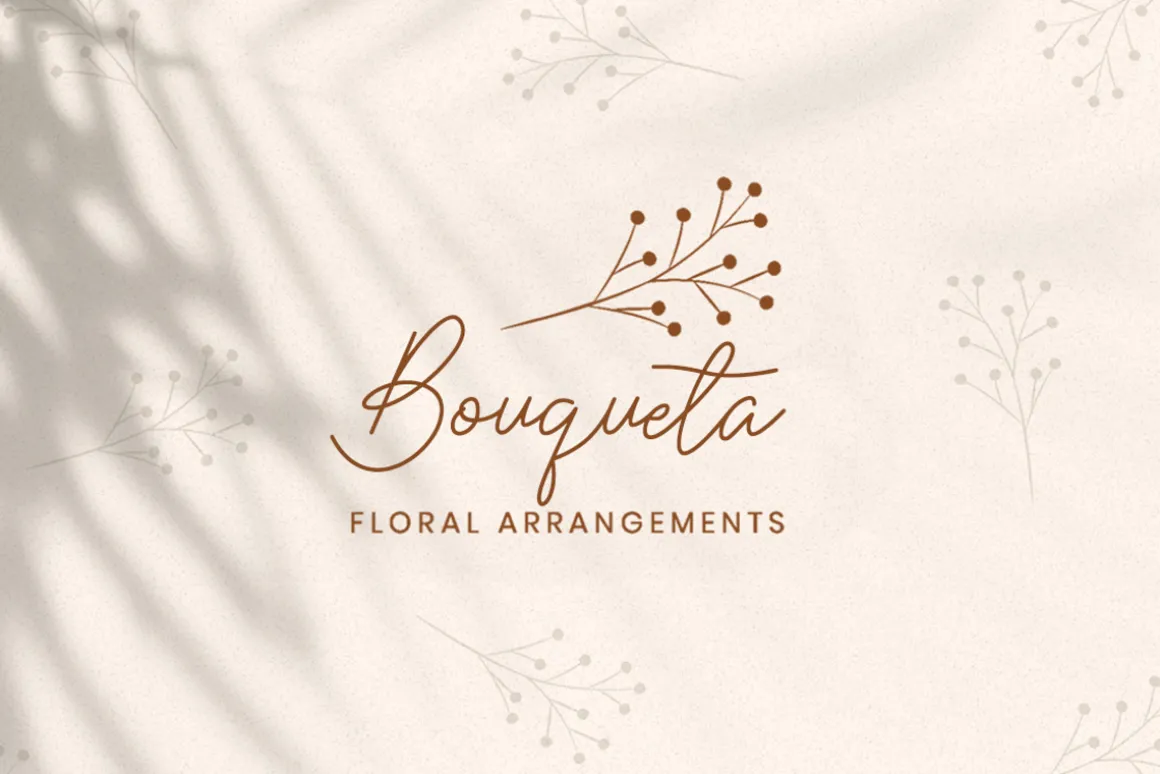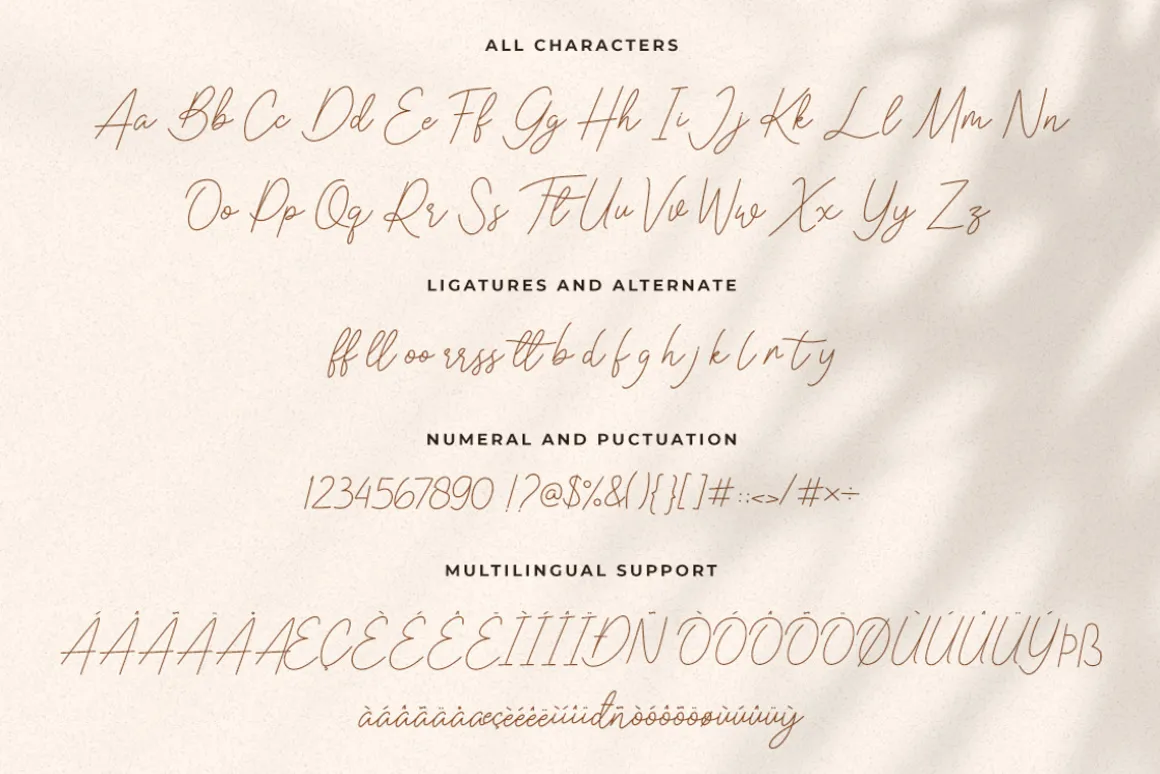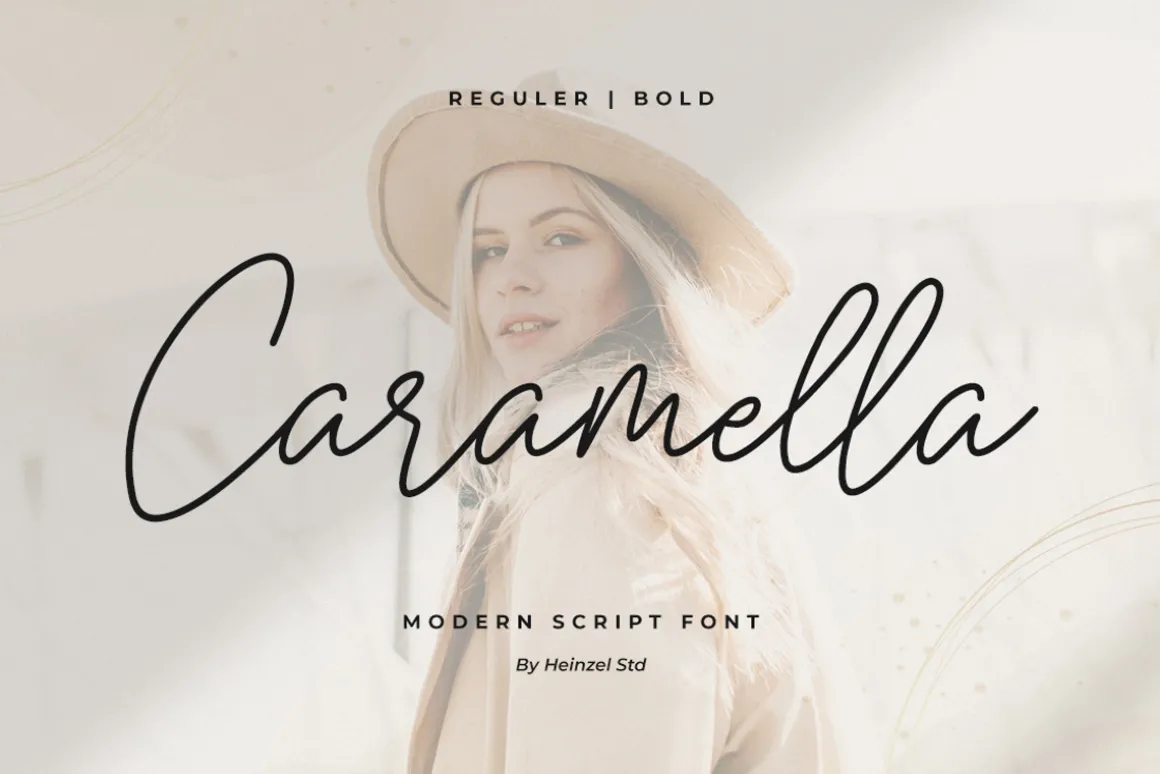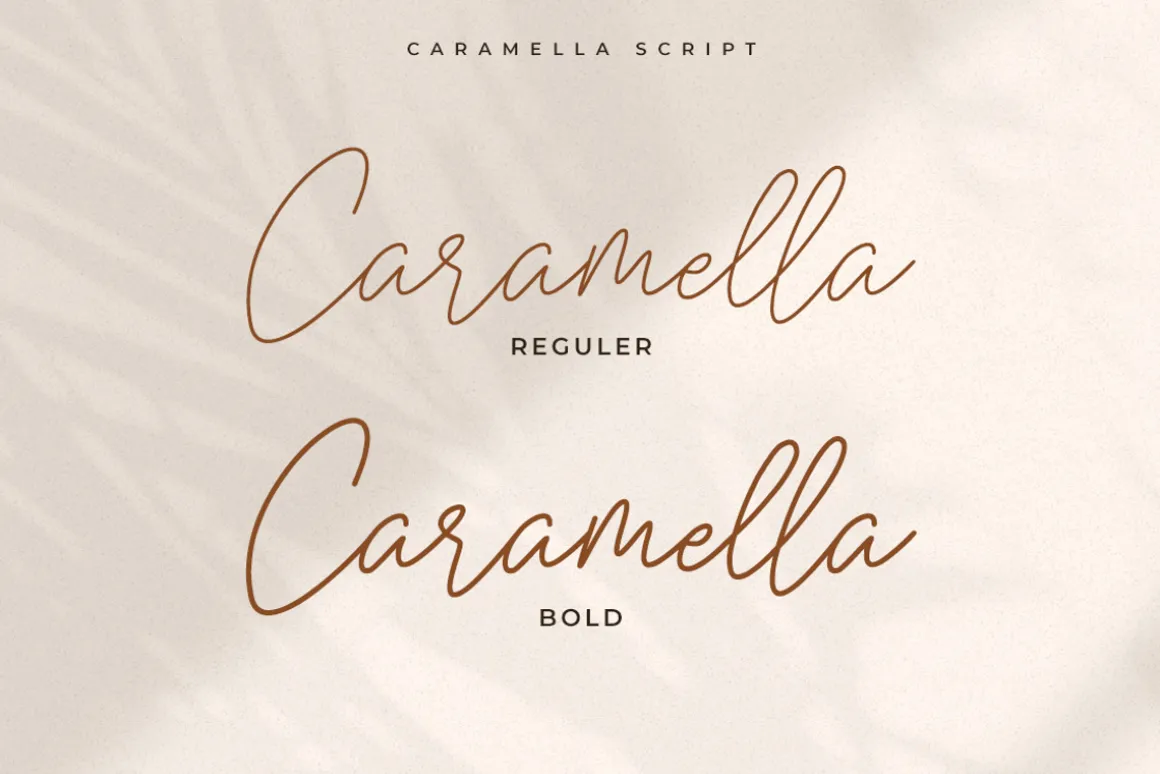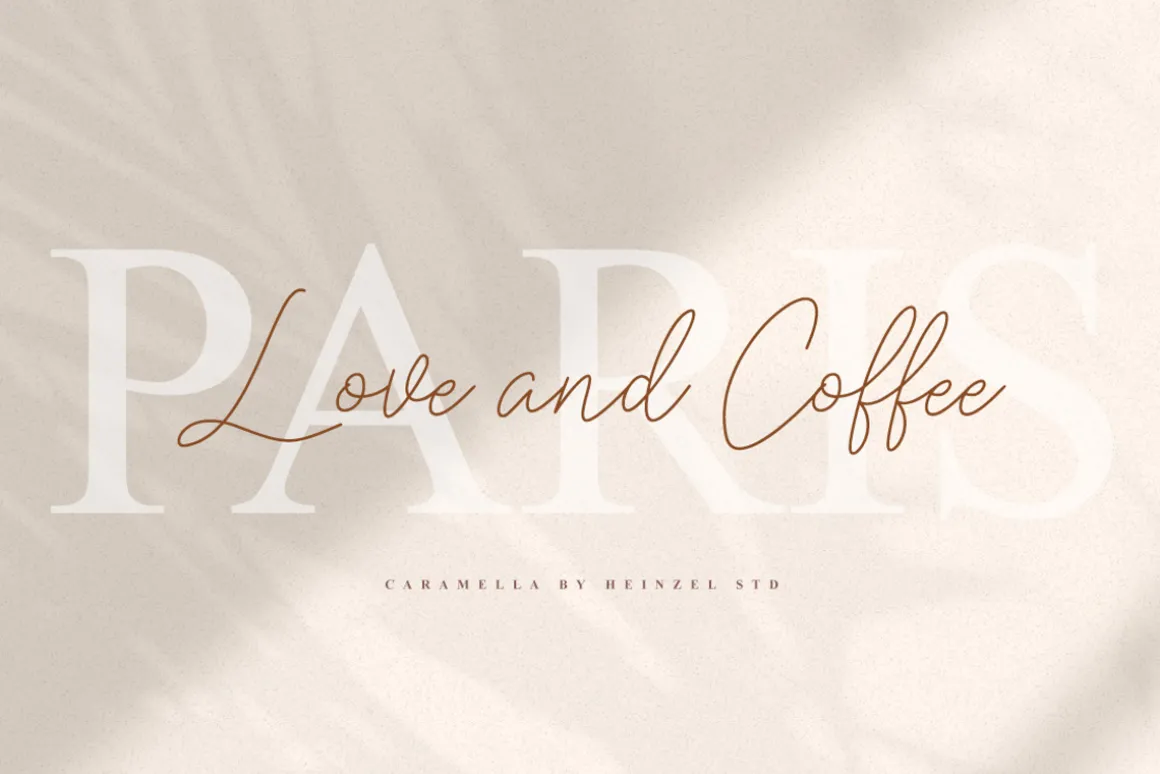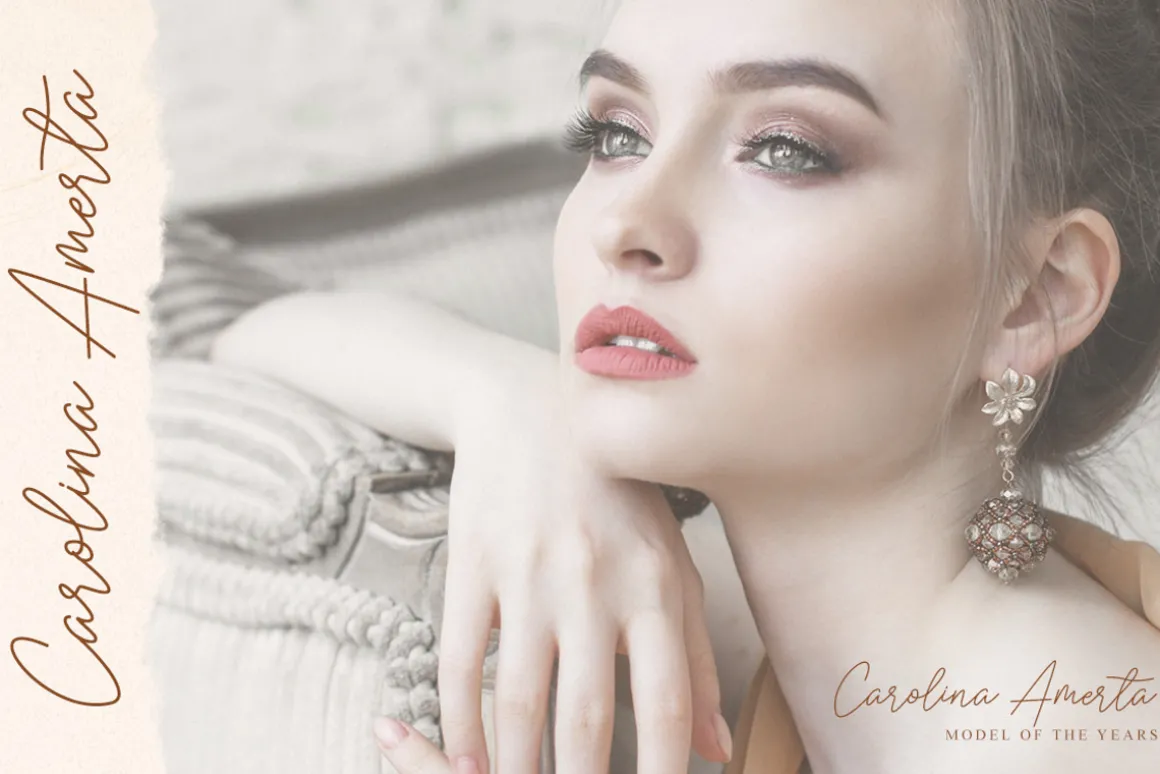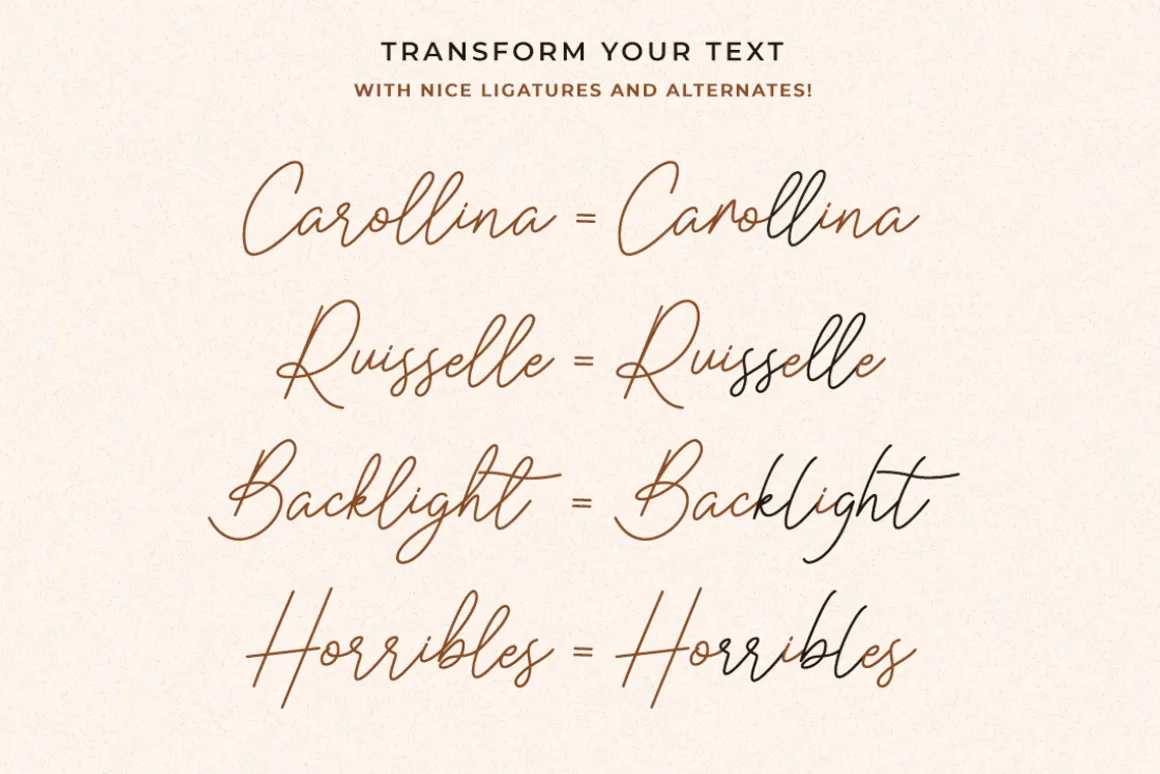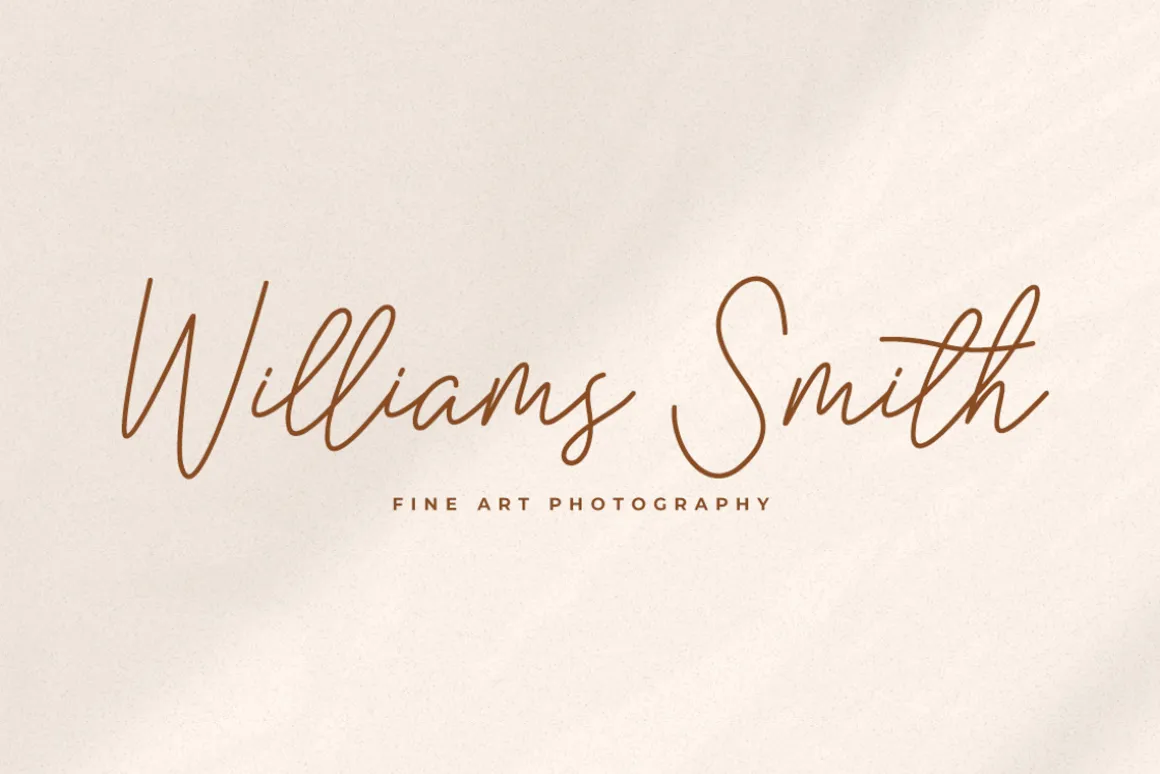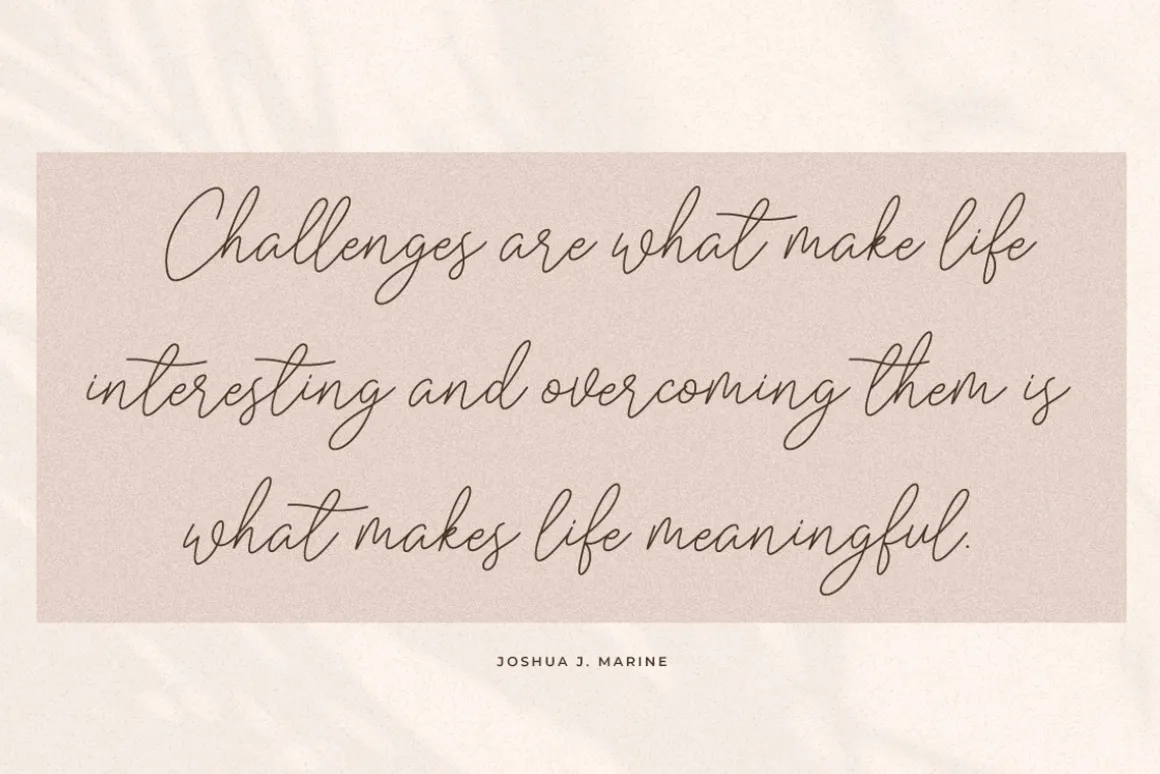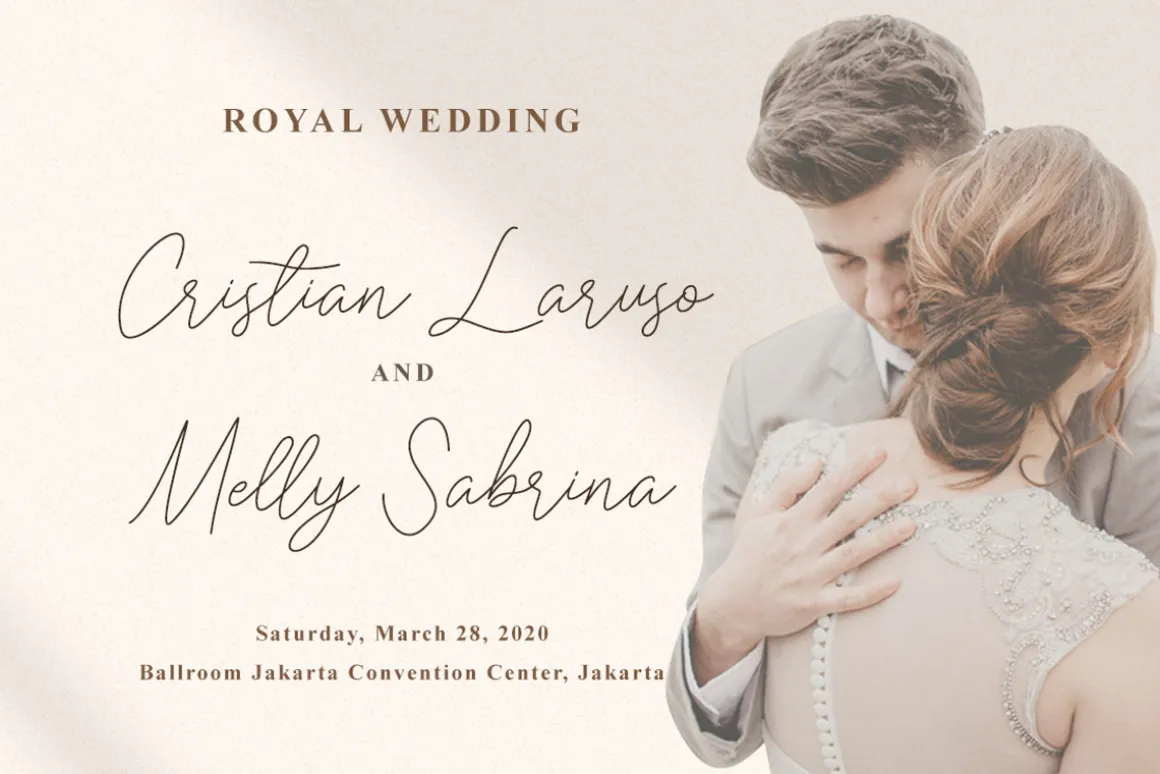
Caramella is simplifies elegance into one truly stunning modern script font. With its relaxed feel, Caramella is incredibly versatile and suitable for each of the design projects you may have in mind! Use it to create beautiful greeting cards, wedding invitations, logos, websites, titles and much more!
- Ligatures and Alternates
- Multilingual Support